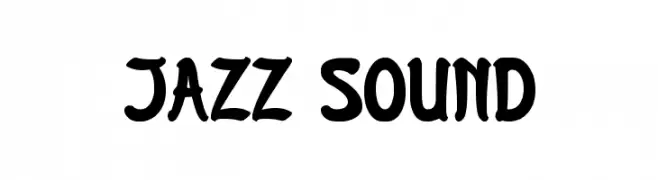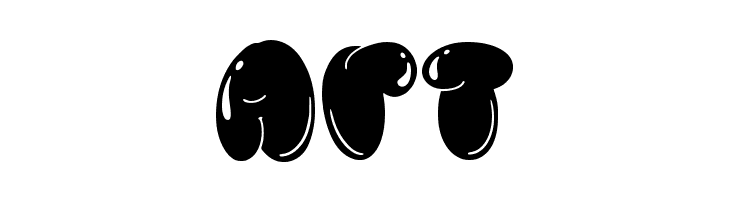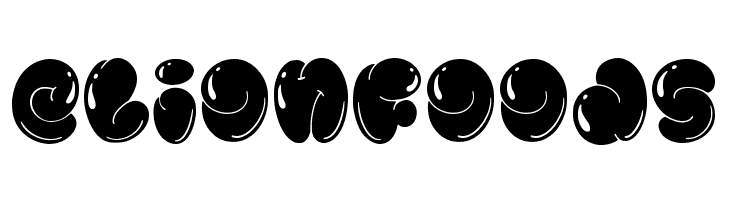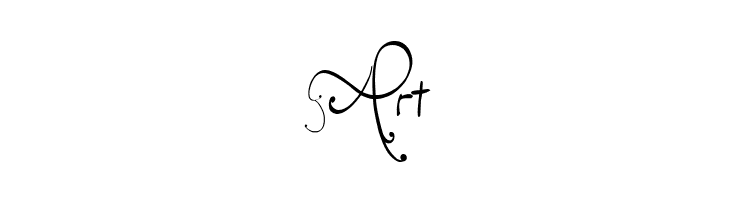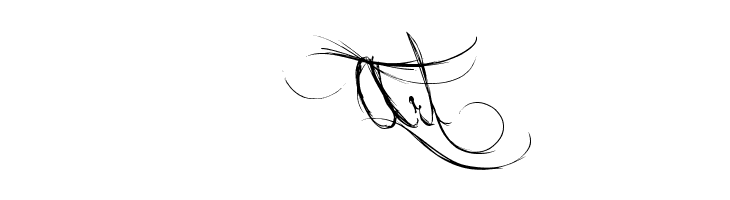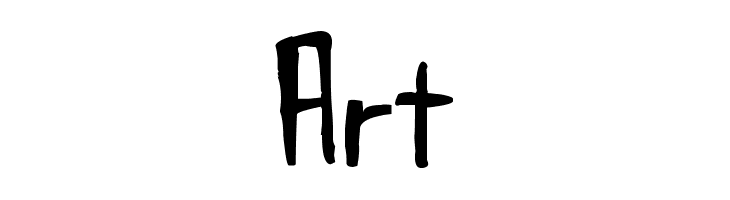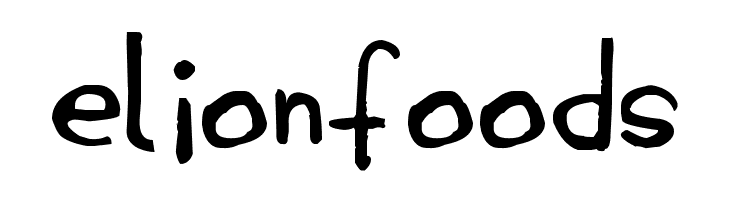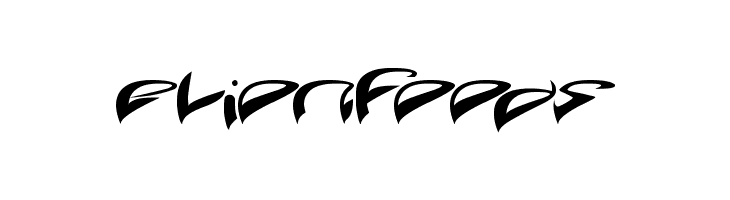
A bold, dynamic script font with sharp, angular strokes and a modern edge.
A bold, playful font with a hand-drawn, vintage aesthetic.
A bold, bubbly font with a shiny, three-dimensional appearance.
An ornate and decorative script font with flowing, intricate letterforms.
An artistic, cursive script with elaborate swirls and decorative flourishes.
A whimsical, cursive script font with elegant flourishes and loops.
A playful, handwritten font with an informal and organic style.